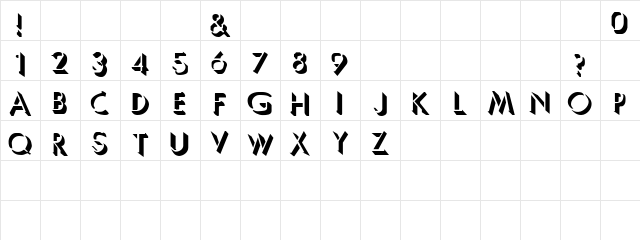
Umbrage Normal
Design Context for Umbrage
Umbrage is a composed and adaptable typeface that performs quietly and consistently across a wide range of design contexts.